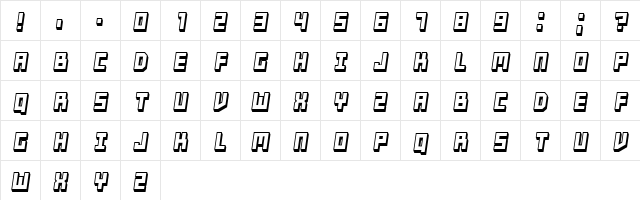
Tricks Hollow Italic Free Font
Tricks Hollow Italic
Tricks Hollow Family
Design Context for Tricks Hollow
Tricks Hollow is a composed and adaptable typeface that performs quietly and consistently across a wide range of design contexts. The slanted form adds forward momentum and visual energy.